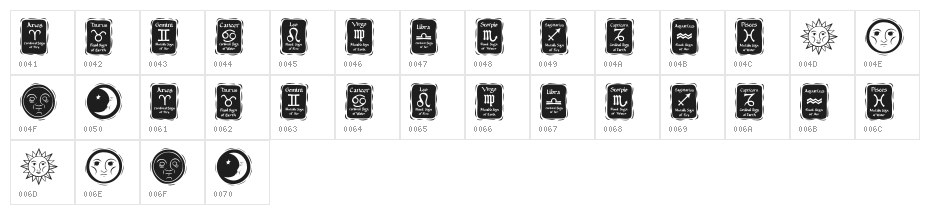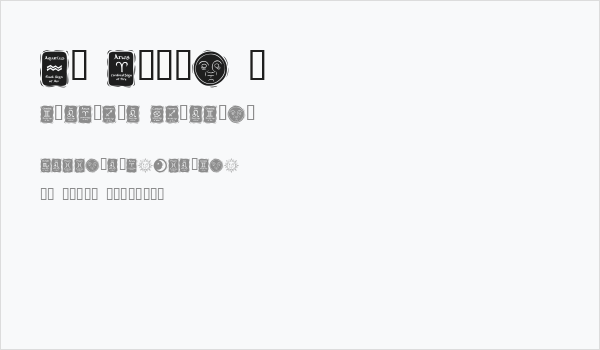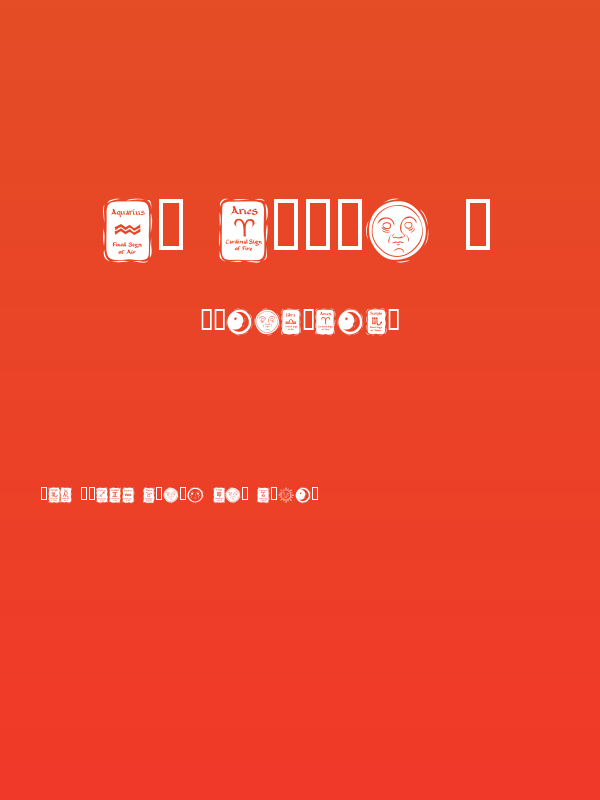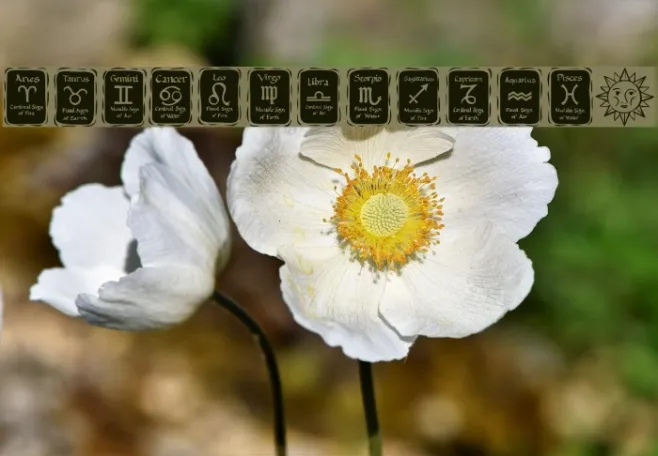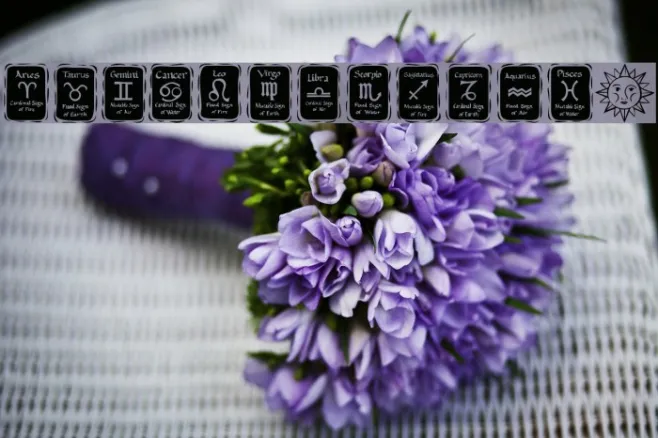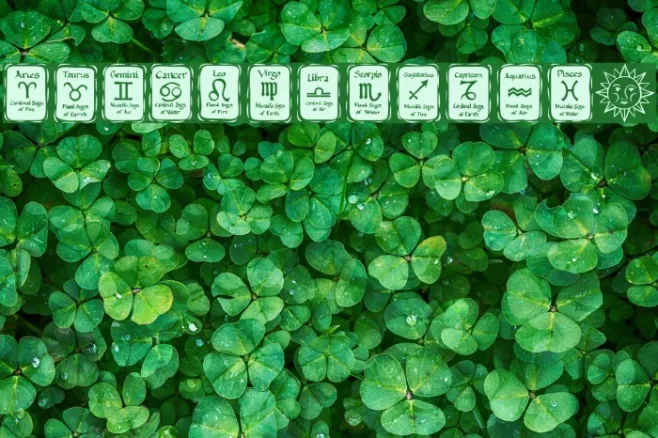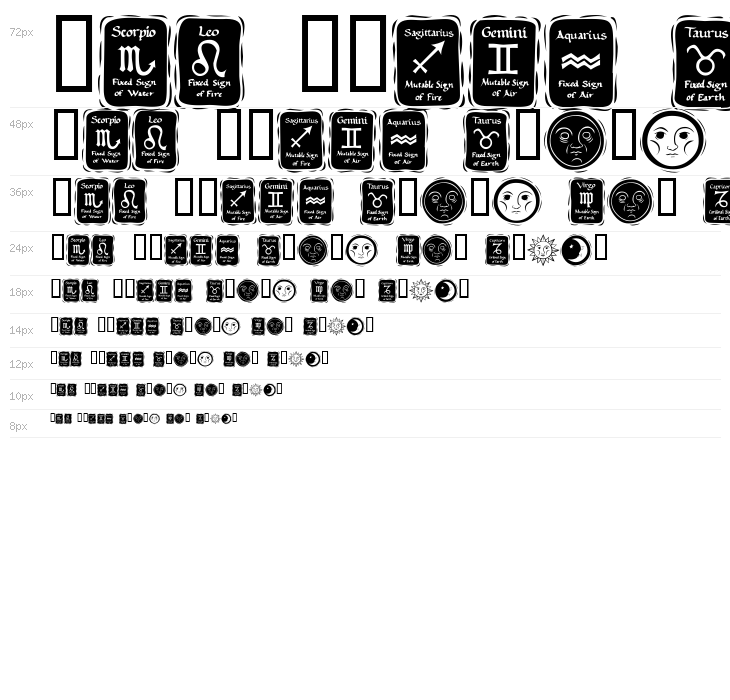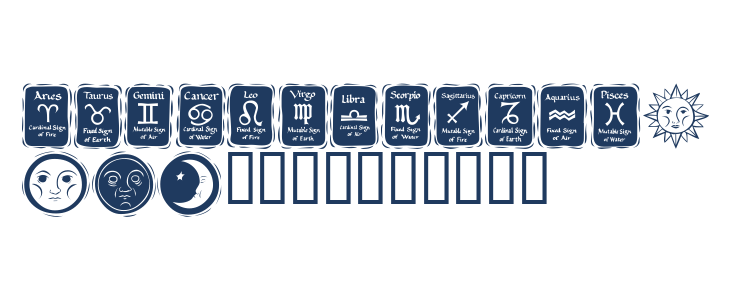
KR Astro 3 Font
This font is a decorative and thematic typeface inspired by astrological symbols and celestial motifs. Each character is intricately designed, incorporating elements like zodiac signs and celestial imagery, such as suns and moons. The style is bold and striking, with a high contrast between thick and thin strokes, giving it a dramatic and mystical appearance. The characters are enclosed within rectangular frames, adding a structured and organized feel to the overall design. This font is perfect for projects that require a touch of the mystical or the cosmic, such as astrology-themed publications, tarot card designs, or any creative work that seeks to evoke a sense of wonder and the unknown.
| Use Case | Logos, Posters, Themed Publications |
| Proposed Projects | Astrology-themed publications, tarot card designs, mystical event invitations, cosmic-themed posters. |